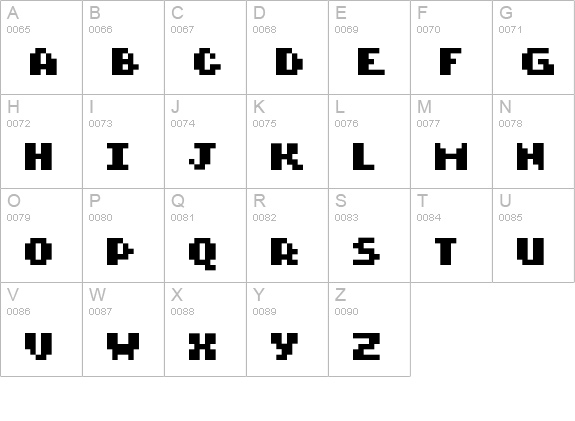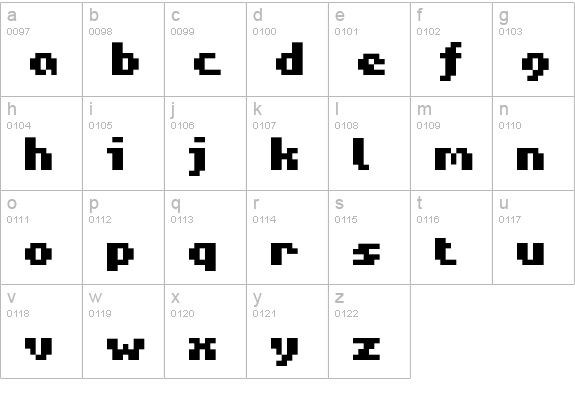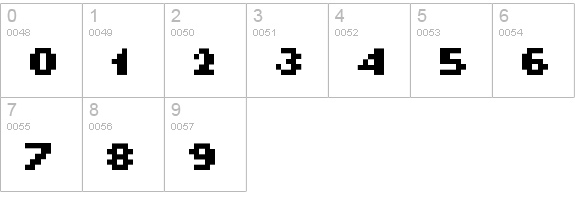
ROTORanti-Bold is a strong, high-contrast variant in the ROTORanti typeface family \xE2\x80\x94 well suited to headlines, attention-grabbing titles, and strong calls-to-action.
ROTORanti-Bold font is a stunning display typeface that exudes strength and modernity. Its bold and angular letterforms command attention, making it perfect for headlines, posters, and other design projects that require a bold statement. The unique design of ROTORanti-Bold font sets it apart from traditional fonts, adding a touch of edginess to any project. What sets ROTORanti-Bold font apart is not only its striking appearance but also the fact that it is available for free download at FontsMarket.com. This means that designers and creatives can easily access this eye-catching font to elevate their projects without any cost. With its bold and impactful presence, ROTORanti-Bold font is sure to make a lasting impression on any design piece it is used in.